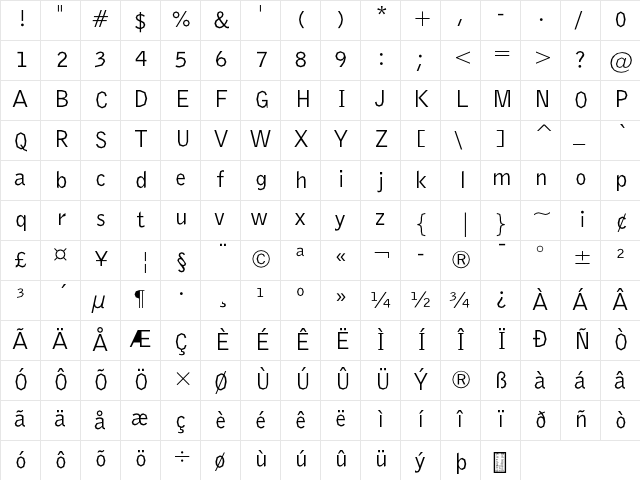
Delinquent Regular Regular
| Designer | K.Hachmang |
Design Context for Delinquent Regular Typeface
Delinquent Regular offers clean, dependable letterforms without strong stylistic allegiance, making it a practical choice for designers who need flexibility.